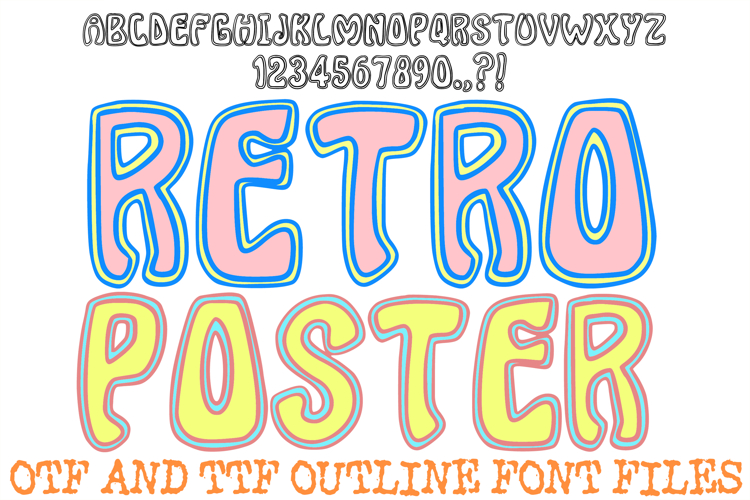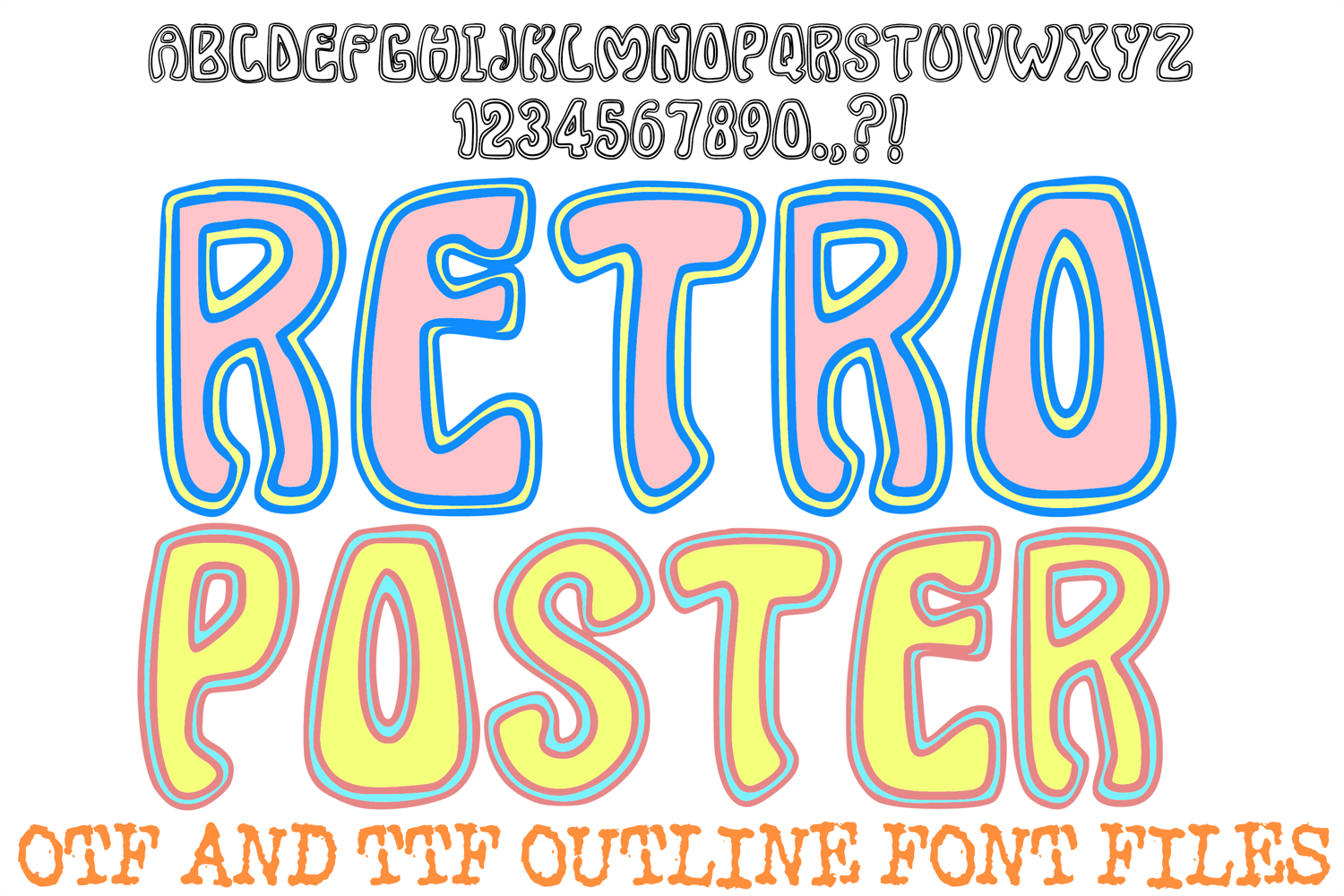
Retro Poster Lettering Font Hand Drawn Vintage Hippy ABC OTF
The Retro Poster Lettering Font is a vibrant, hand-drawn display typeface that captures the groovy, nostalgic energy of the 1960s and 70s. Featuring bold, bubbly shapes and "melting" swirly flourishes, this font is a perfect choice for psychedelic music posters, vintage-themed apparel, funky branding, and high-impact digital art.
Each character is meticulously designed with a fluid, artisan feel, layering thick organic curves with bright, contrasting outlines that make your text pop off the page. Whether you are a designer creating a retro boutique logo or a crafter working on eye-catching sublimation projects, the Retro Poster Lettering Font delivers a timeless, soulful aesthetic that feels both classic and modern.
Why Your Designs Will Stand Out
Groovy Layered Aesthetic: Every letter (A–Z) and number (0–9) features a unique, multi-layered outline style that mimics iconic vintage pop art.
High-Impact Visibility: The bold, chunky weight of the characters makes your headlines easily readable while maintaining a fun, liquid-like movement.
Artisan Hand-Drawn Quality: The organic, hand-illustrated outlines provide an authentic retro feel that standard digital fonts can't replicate.